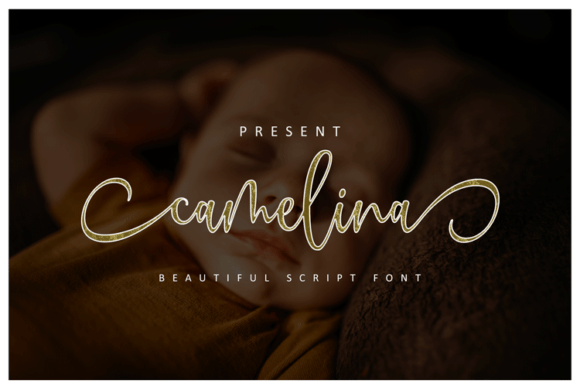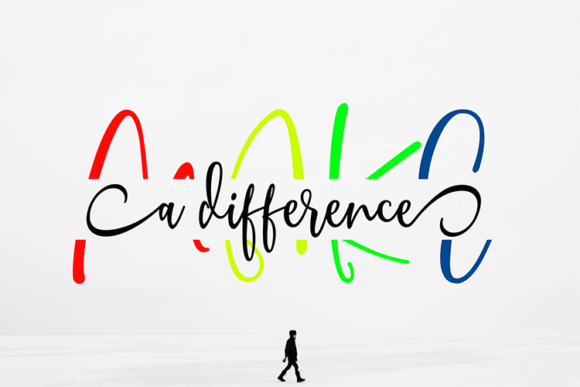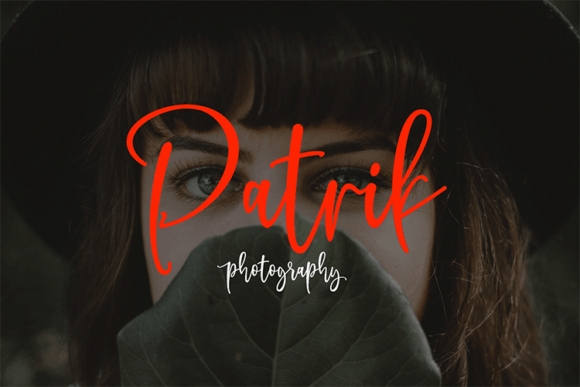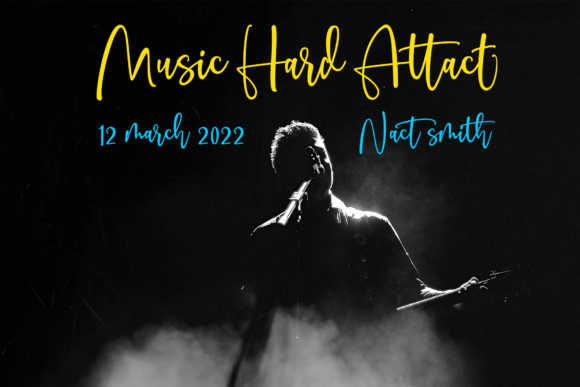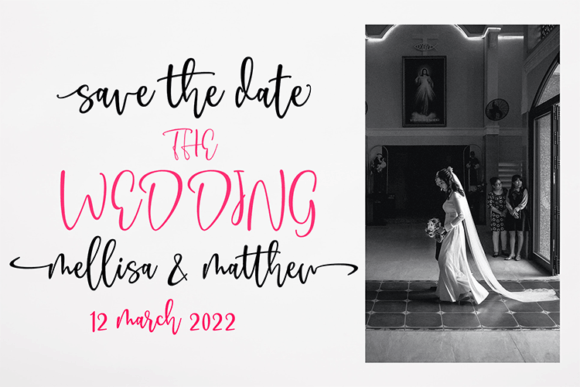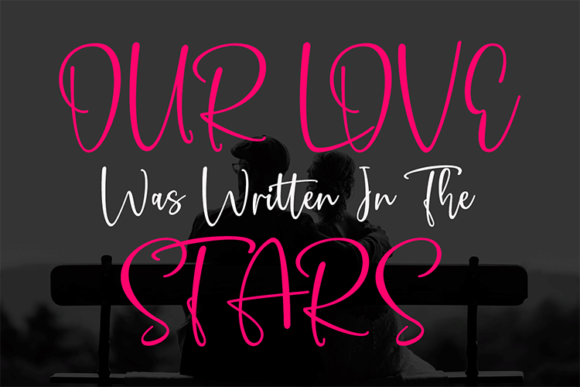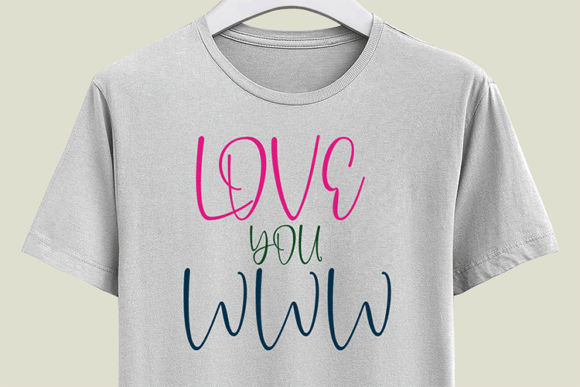
**Camelina: A Modern Calligraphy Font with Elegance**
Meet **Camelina**, a modern calligraphy font that adds an elegant touch to your projects with characters gracefully dancing along the baseline. This font is a versatile choice suitable for various purposes, making it a valuable addition to your design toolbox.
**Camelina** stands out with its contemporary and flowing letterforms, exuding an air of sophistication and creativity. The characters’ elegant dance along the baseline adds a touch of uniqueness and artistic flair to your typography.
The versatility of **Camelina** allows it to be used for a wide range of applications. Whether you’re working on logos, wedding invitations, letterhead, signage, news articles, t-shirts, heading labels, posters, badges, or any other creative project, this font adapts seamlessly to your needs.
For logos and branding, **Camelina** infuses your visual identity with a sense of elegance and style. It helps your brand establish a memorable and sophisticated image, leaving a lasting impression on your audience.
In wedding invitations and special event designs, this font elevates the romantic and graceful aspects of your projects, setting the tone for memorable celebrations.
In conclusion, **Camelina** is more than just a font; it’s a versatile design tool that brings modern calligraphy elegance to your creative projects. Whether you’re designing for branding, special occasions, or various other contexts, choose **Camelina** to infuse your work with its graceful and artistic charm. Embrace its flowing elegance, and let your creativity flourish with sophistication.